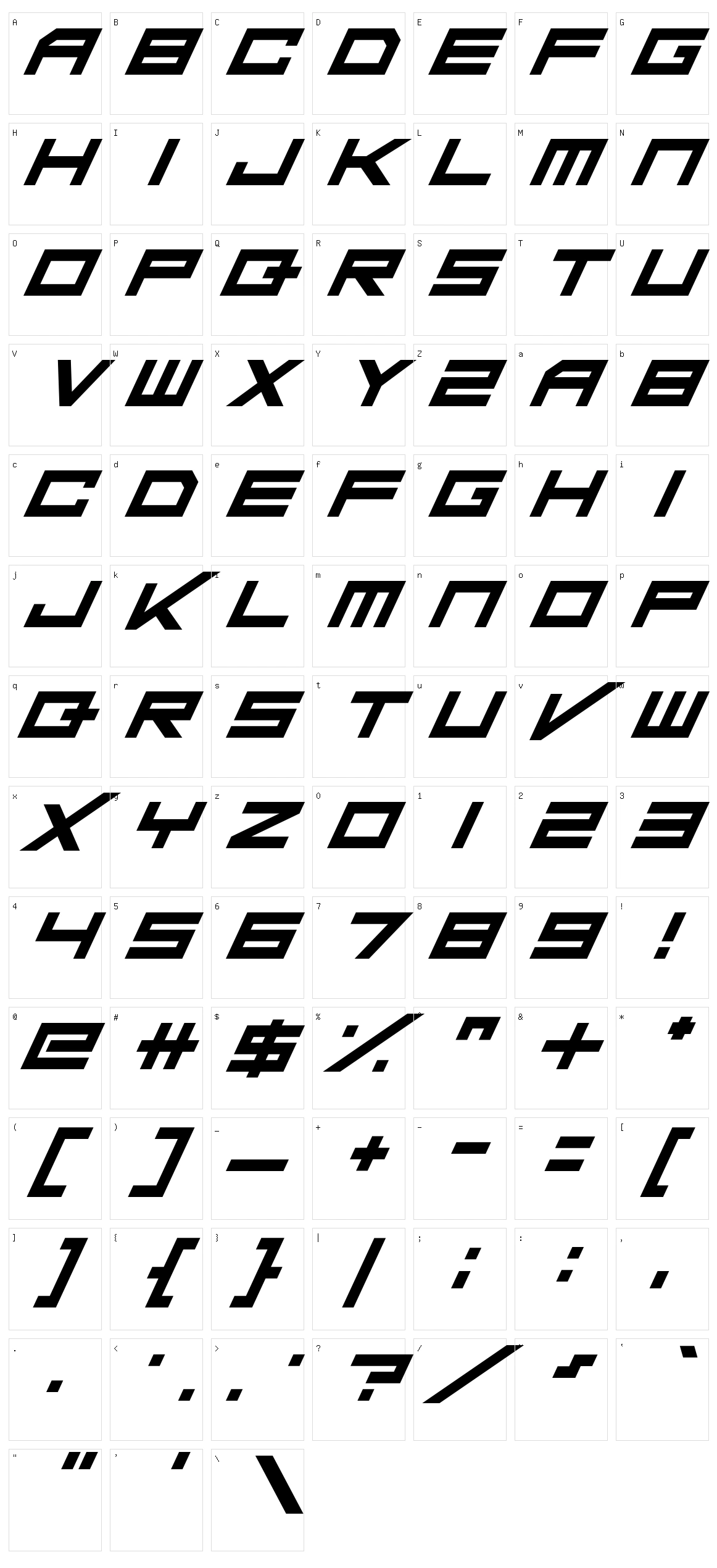
The free font Da Mad Rave is carefully designed by Hawtpixel, showcasing a thoughtful balance of creativity and usability and falls under the Square font style. When you download the ZIP file, it contains only 101.96 KB of font files, making it lightweight and quick to download. Please review the license details below to understand permitted usage and distribution rights. If license information is not available, we recommend using this font for personal projects only or contacting the author directly for commercial usage permissions.